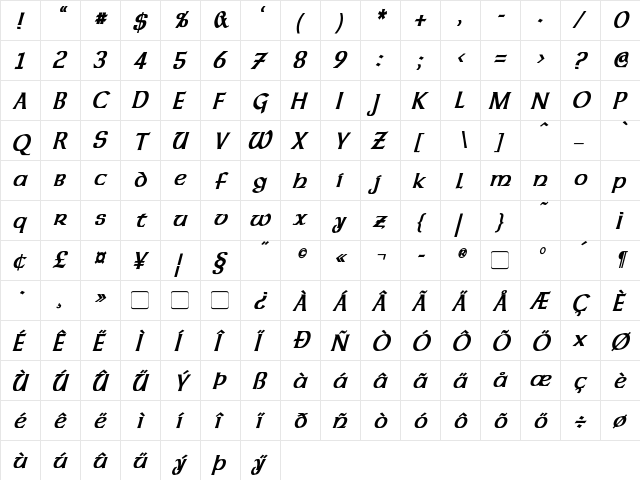
Dalelands Uncial Condensed Bold Italic Font Preview
Design Context for Dalelands Uncial Condensed Typeface
Dalelands Uncial Condensed is a composed and adaptable typeface that performs quietly and consistently across a wide range of design contexts. The slanted form adds forward momentum and visual energy. The heavy weight commands attention and anchors typographic hierarchies. Its narrow stance lets it pack a punch even in space-constrained designs.
Pro Tip: Use Dalelands Uncial Condensed for emphasis, pull quotes, and subheadings where its slanted energy can add rhythm to the layout.